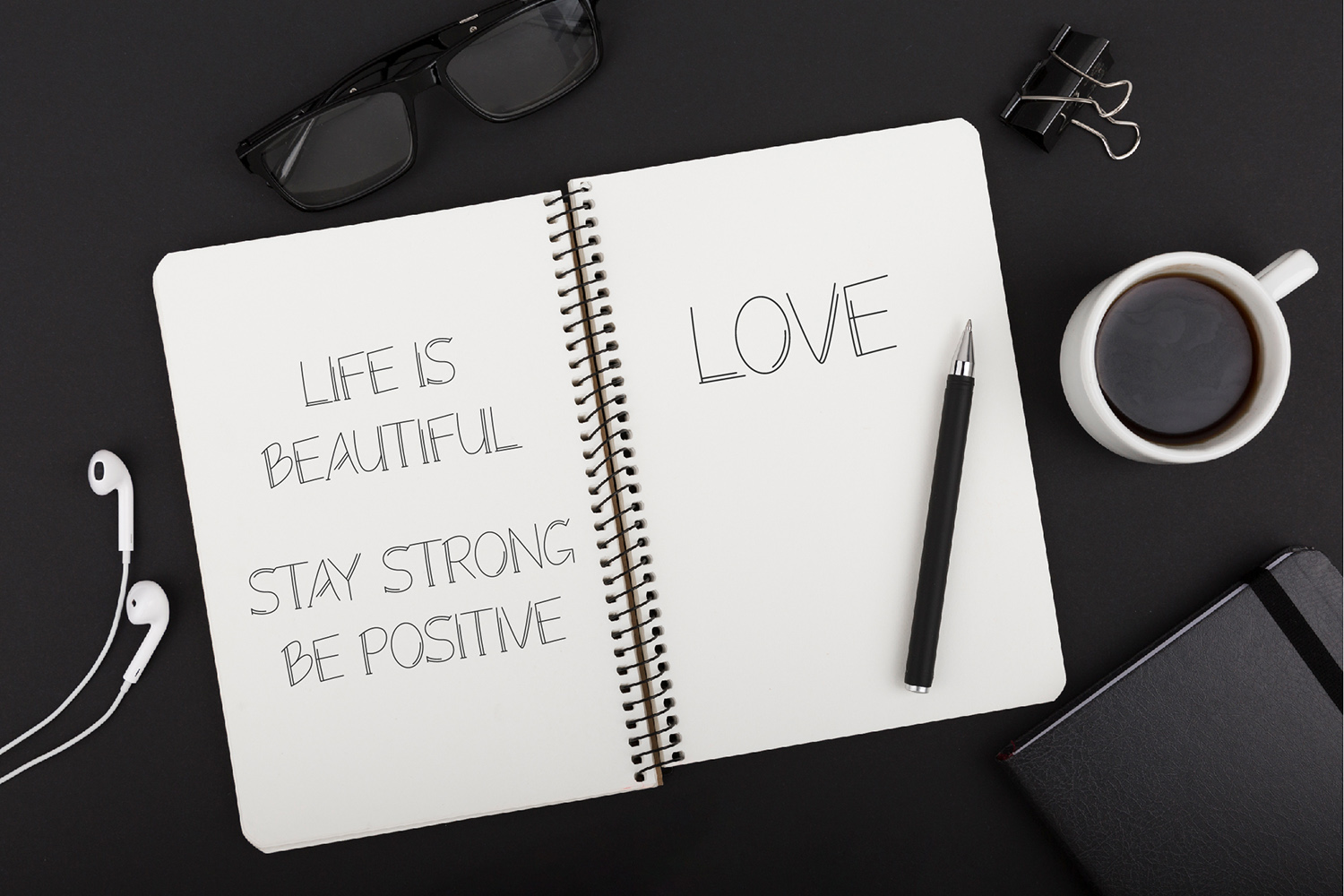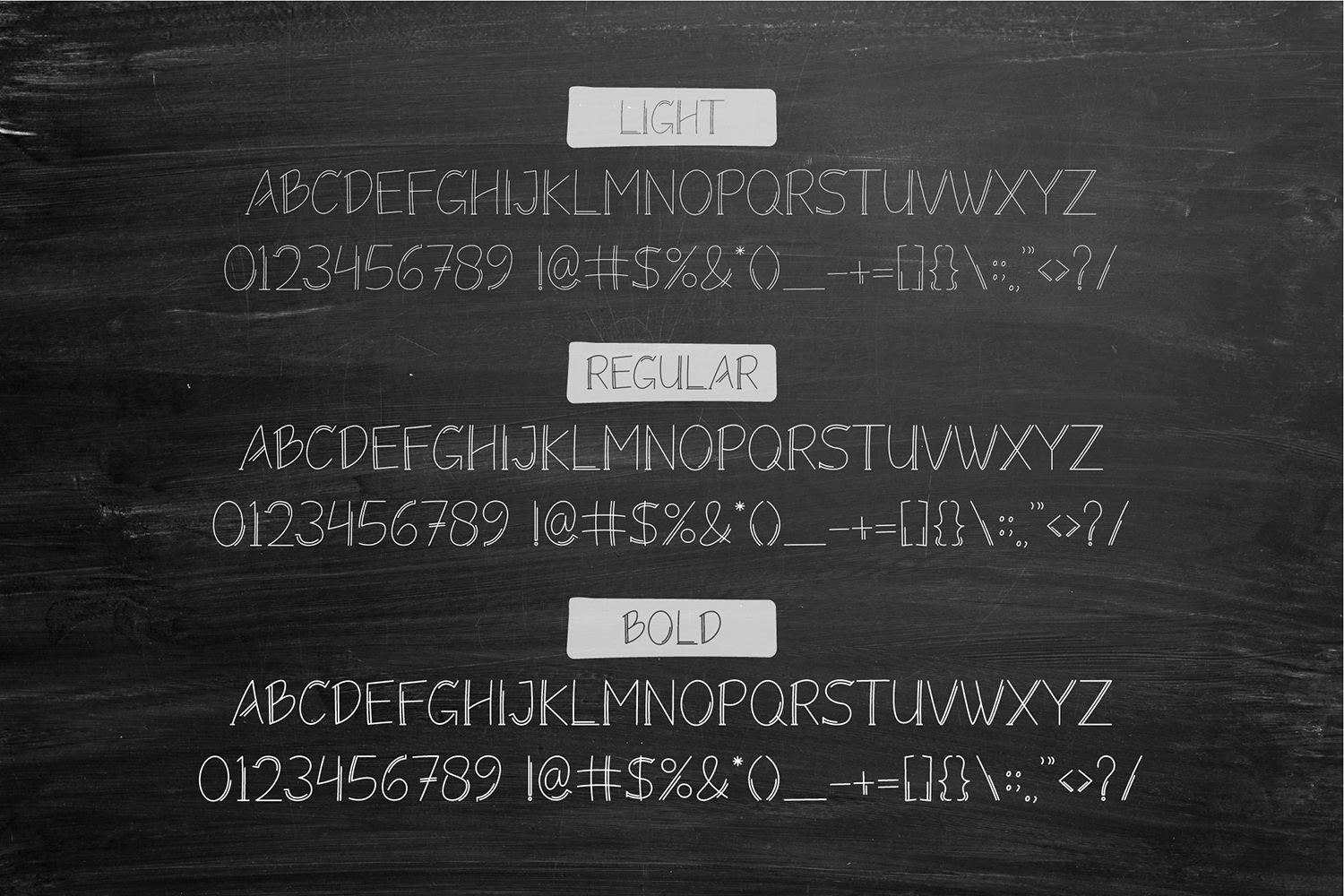
Monolism Free Font
Monolism Free Font is perfect for professional branding, quotes, cards, invitation, product design, labels, logos, apparel design, and much more. This free typeface was designed by talented Gilztype. If you like it don’t forget to check out the full version.